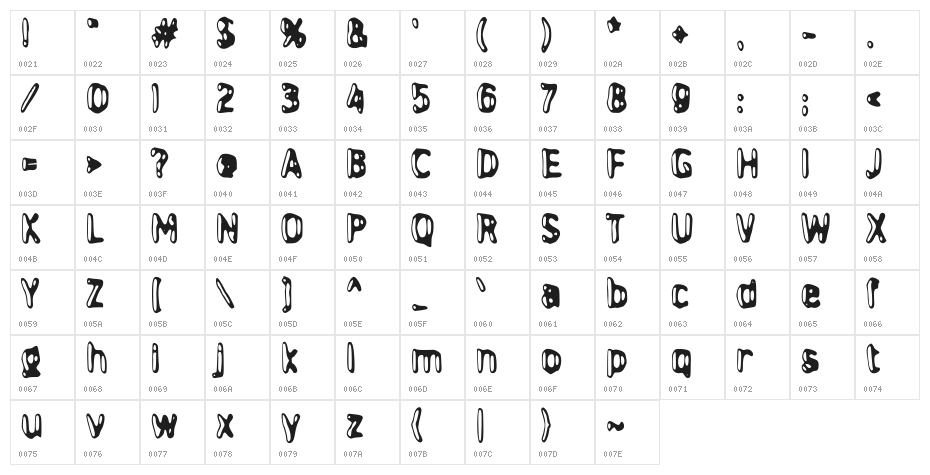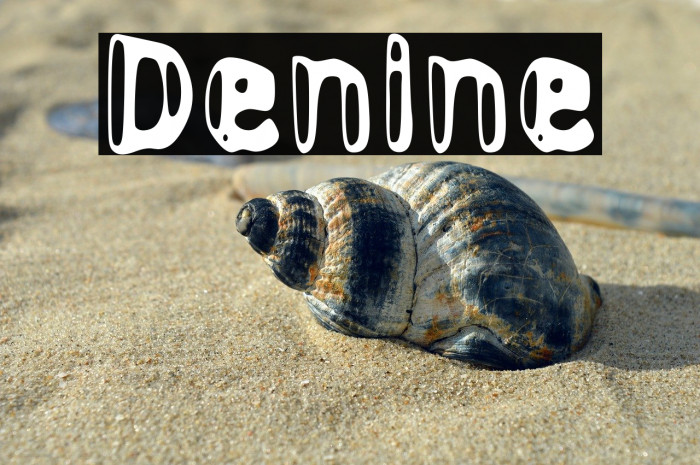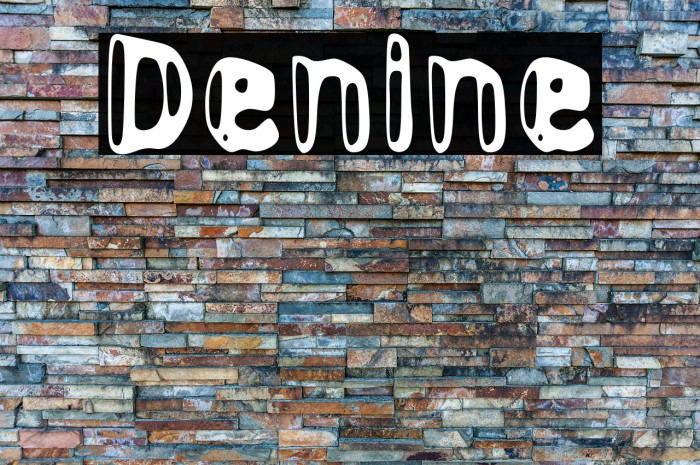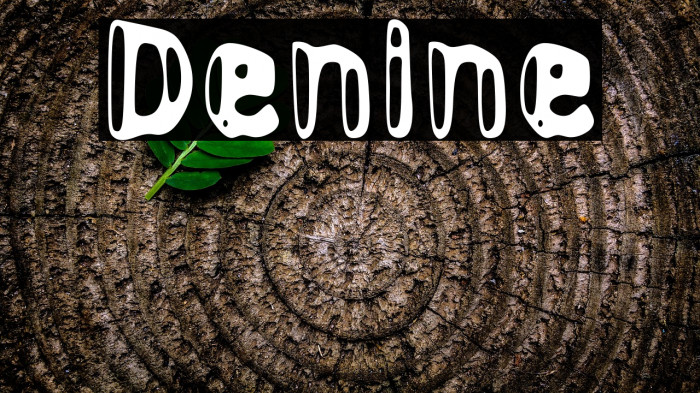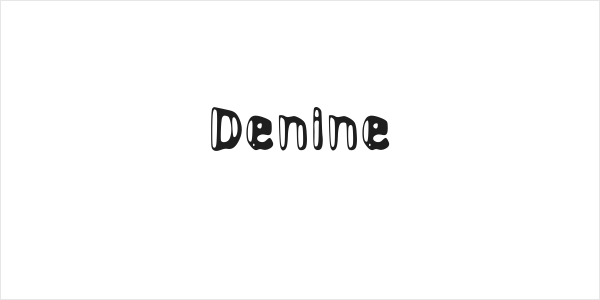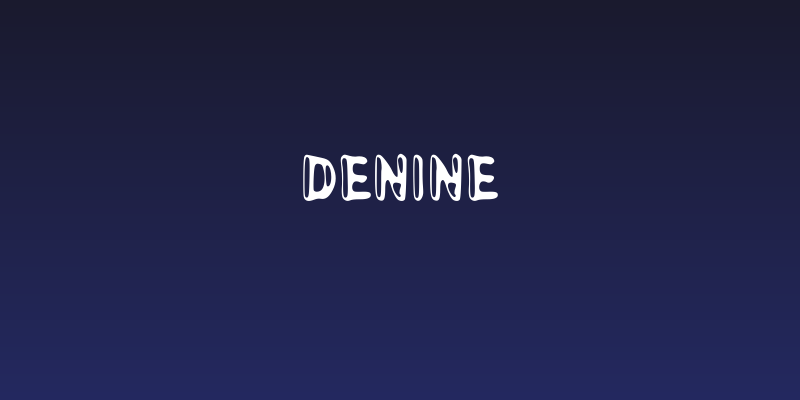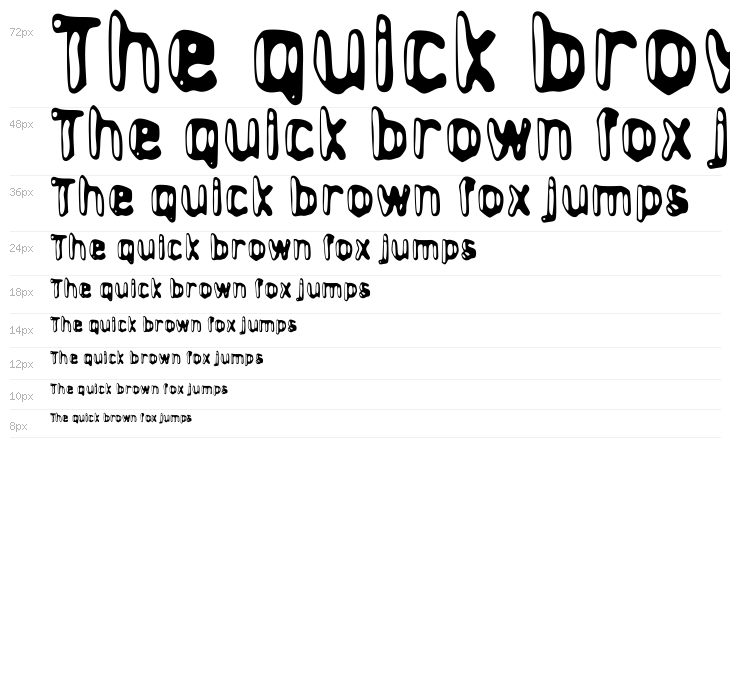
Denine Font
Denine Description
This playful and whimsical font features bold, irregular shapes with a bubbly, organic feel. Each character is uniquely crafted with a sense of movement and fluidity, resembling liquid or melting forms. The font's thick strokes and rounded edges give it a friendly and approachable appearance, making it ideal for creative and informal projects. The characters are filled with small, irregular holes, adding to its quirky and distinctive style. This font is perfect for designs that aim to capture attention and convey a sense of fun and creativity.
| Overall Style | Whimsical, Playful |
| Use Case | Logos, Headlines, Posters |
| Proposed Projects | Ideal for children's books, playful branding, party invitations, and creative posters. |